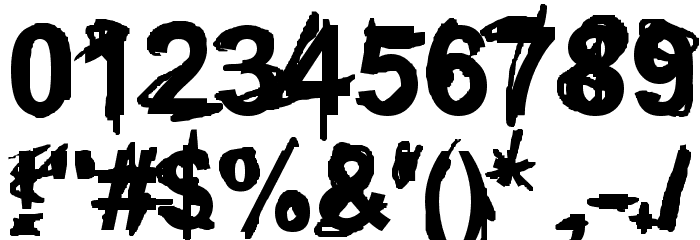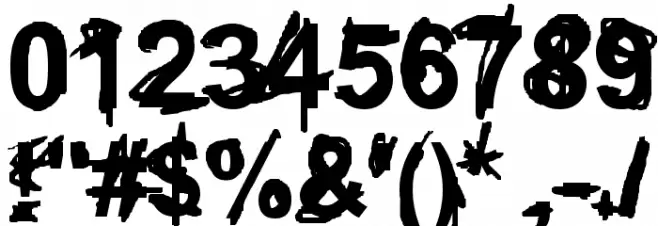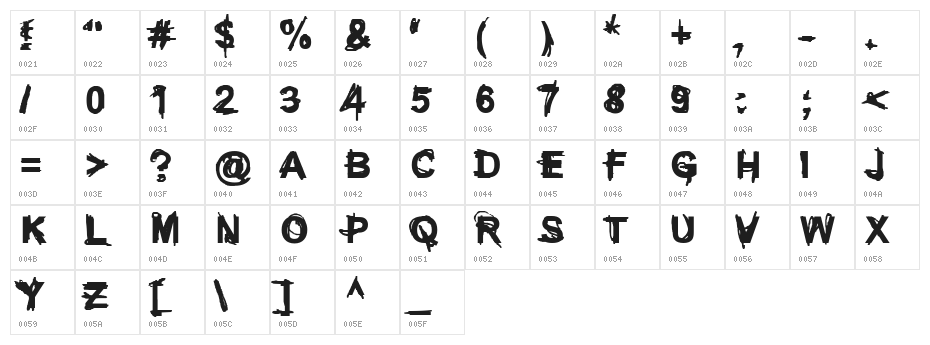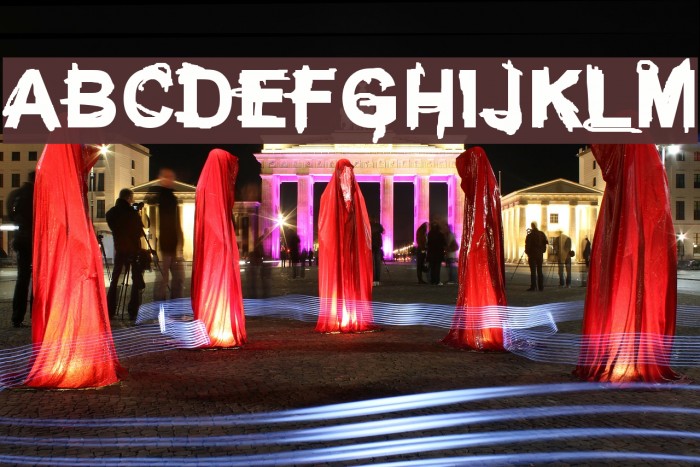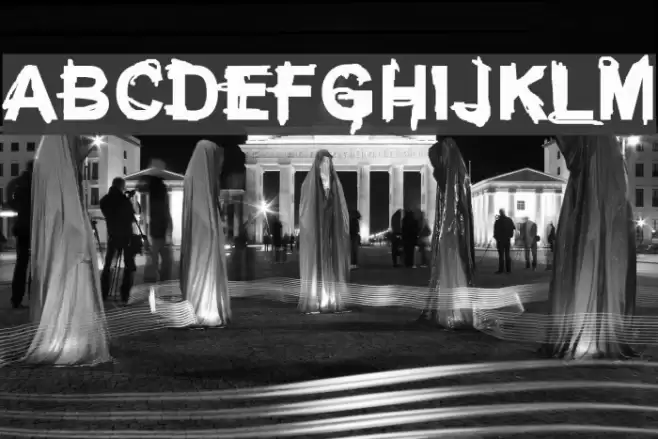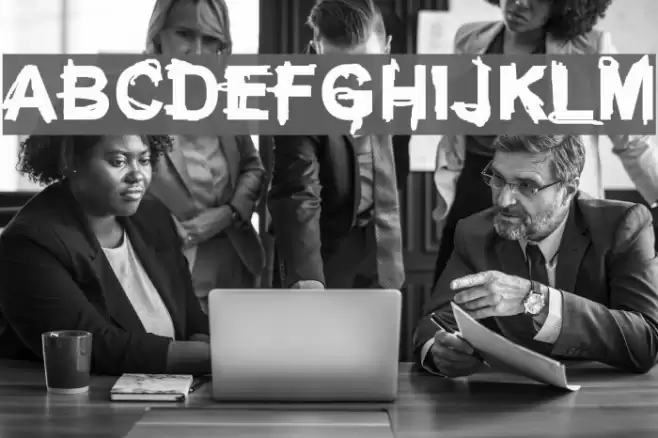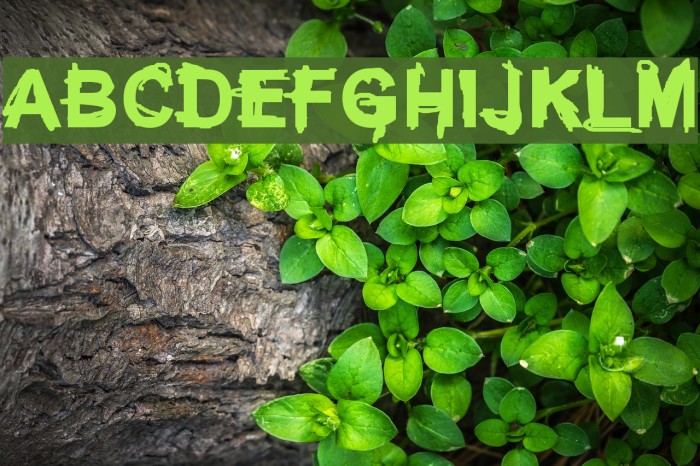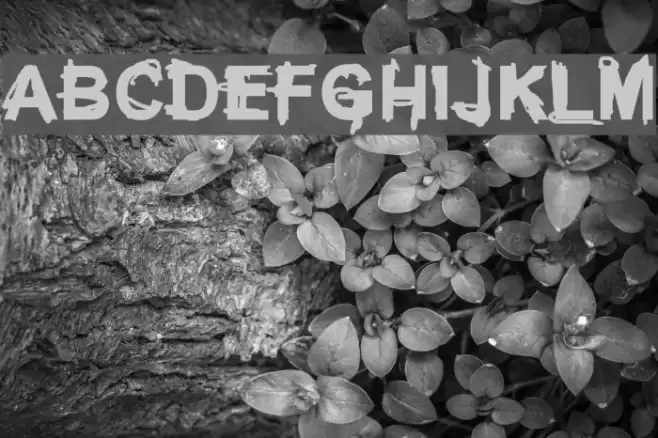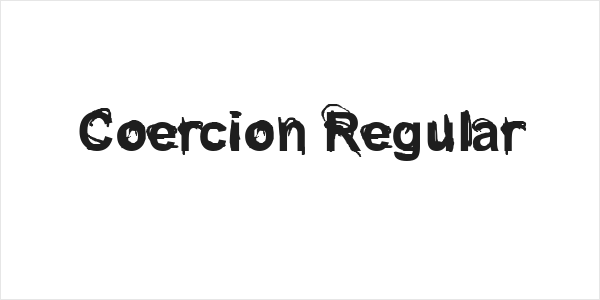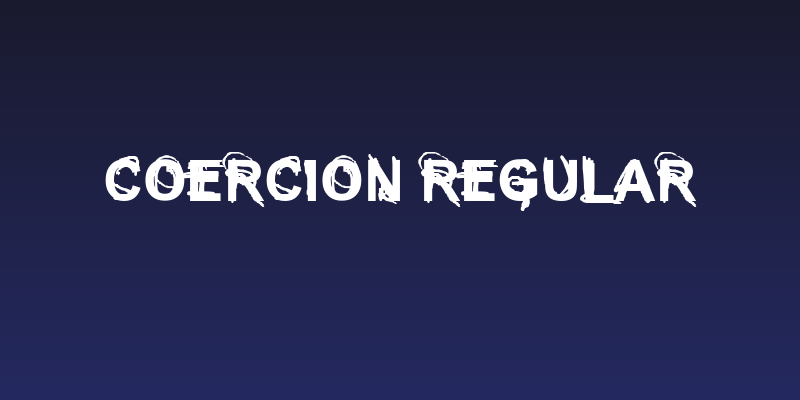
Coercion Regular Font
Coercion Regular Description
This font exhibits a bold and distressed style, characterized by its rough, textured appearance. The letters have an uneven, hand-drawn quality, giving them a raw and edgy look. The uppercase and lowercase letters maintain a consistent style, with jagged edges and irregular strokes that create a sense of movement and energy. The numbers and special characters follow the same design, ensuring a cohesive appearance across all glyphs. This font's unique aesthetic makes it stand out, ideal for projects that require a grunge or rebellious theme.
| Overall Style | Grunge, Edgy |
| Proposed Projects | Album covers, posters, streetwear branding, or any project needing a grunge aesthetic. |